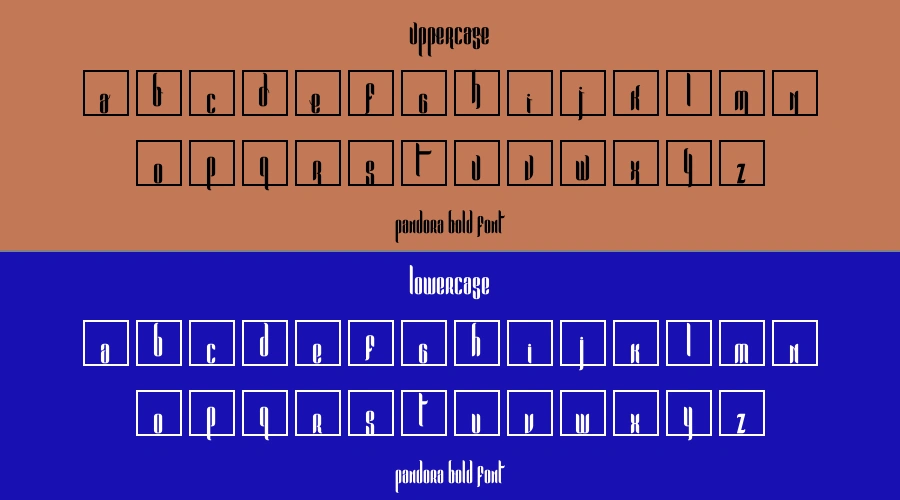
About Pandora Bold Font
Pandora Bold Font embodies typographic excellence through its masterful combination of convex bowls and functional clarity. Created for annual reports, this typeface delivers exceptional expressiveness and professional authority across all applications. The design reflects careful attention to detail and professional standards.
Advanced capabilities include distinctive impactful forms and versatile contextual alternates, giving designers creative control. When used in digital platforms, Pandora Bold Font exhibits remarkable digital conversion. The harmonious balance between descender depth and engineering heritage sets this typeface apart.